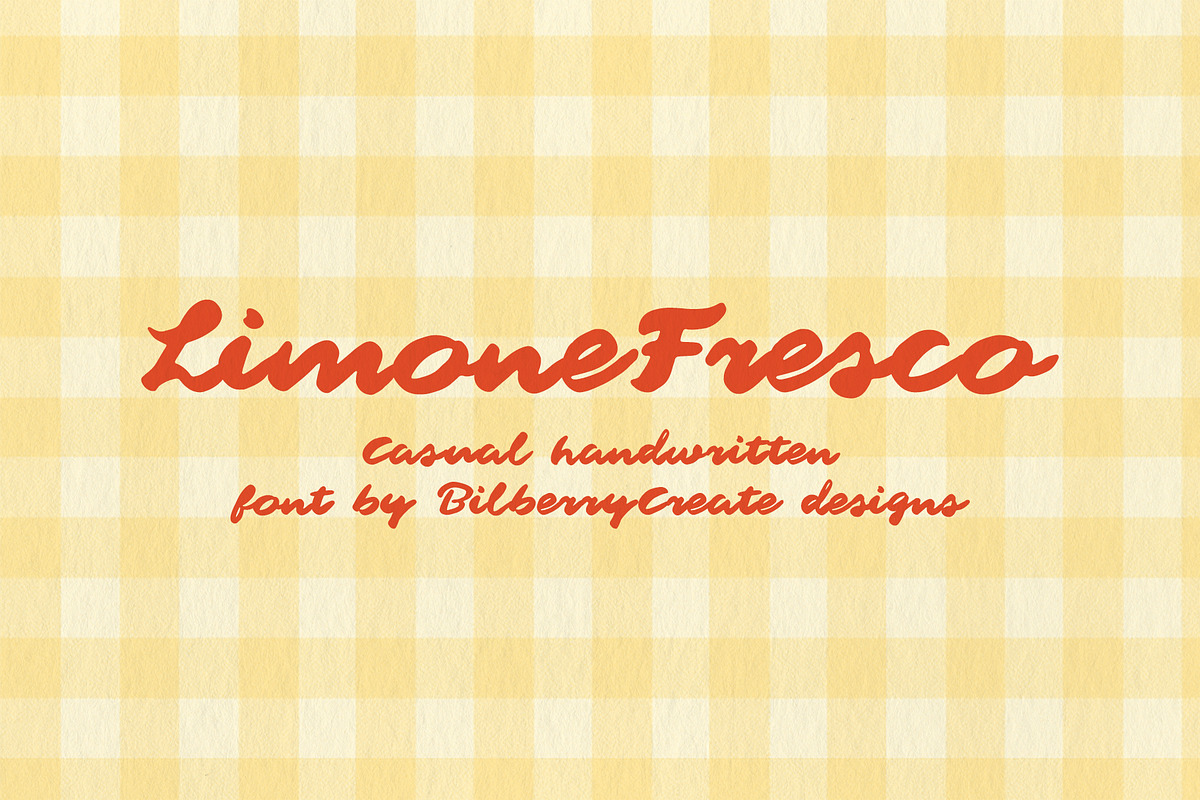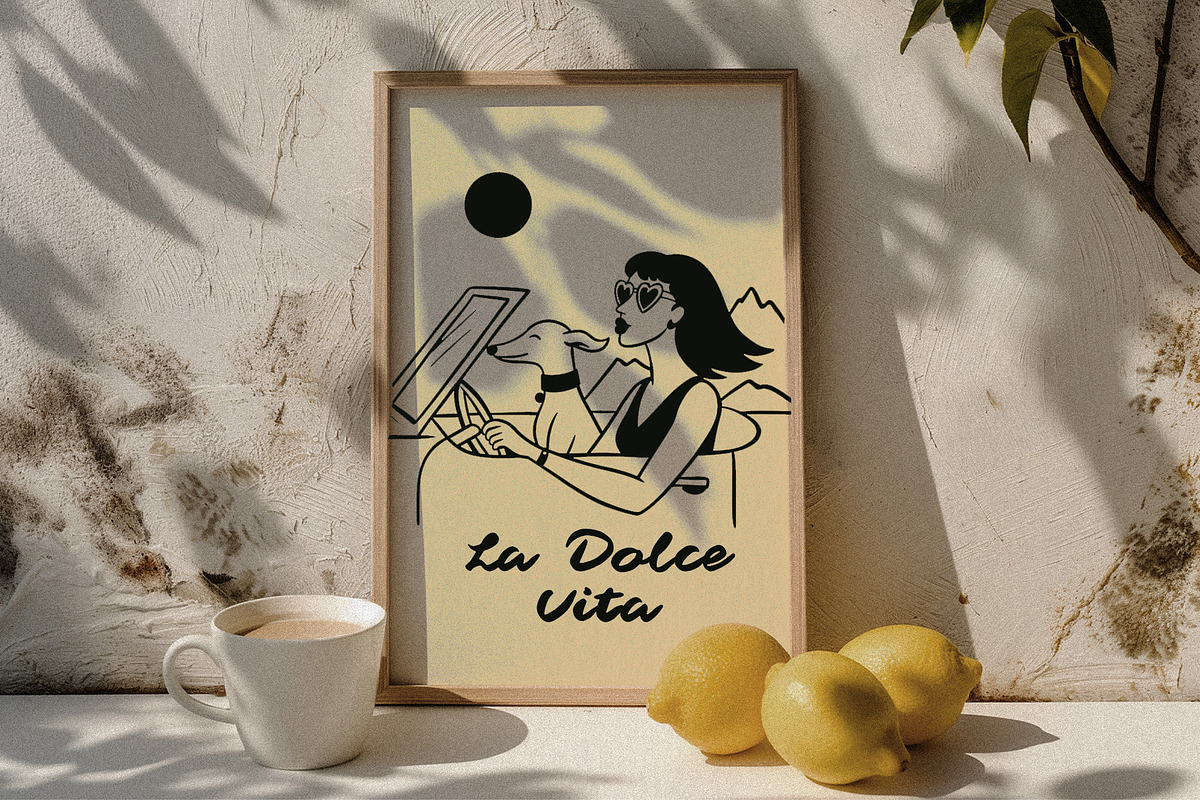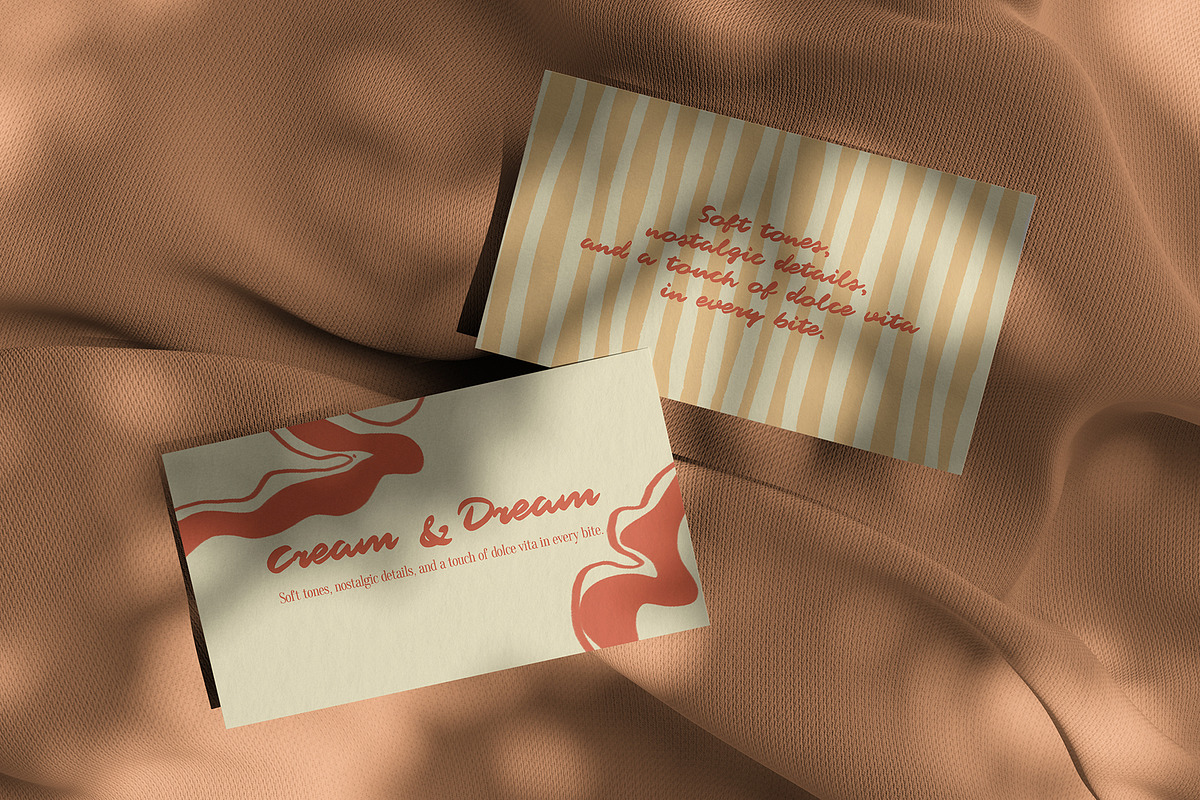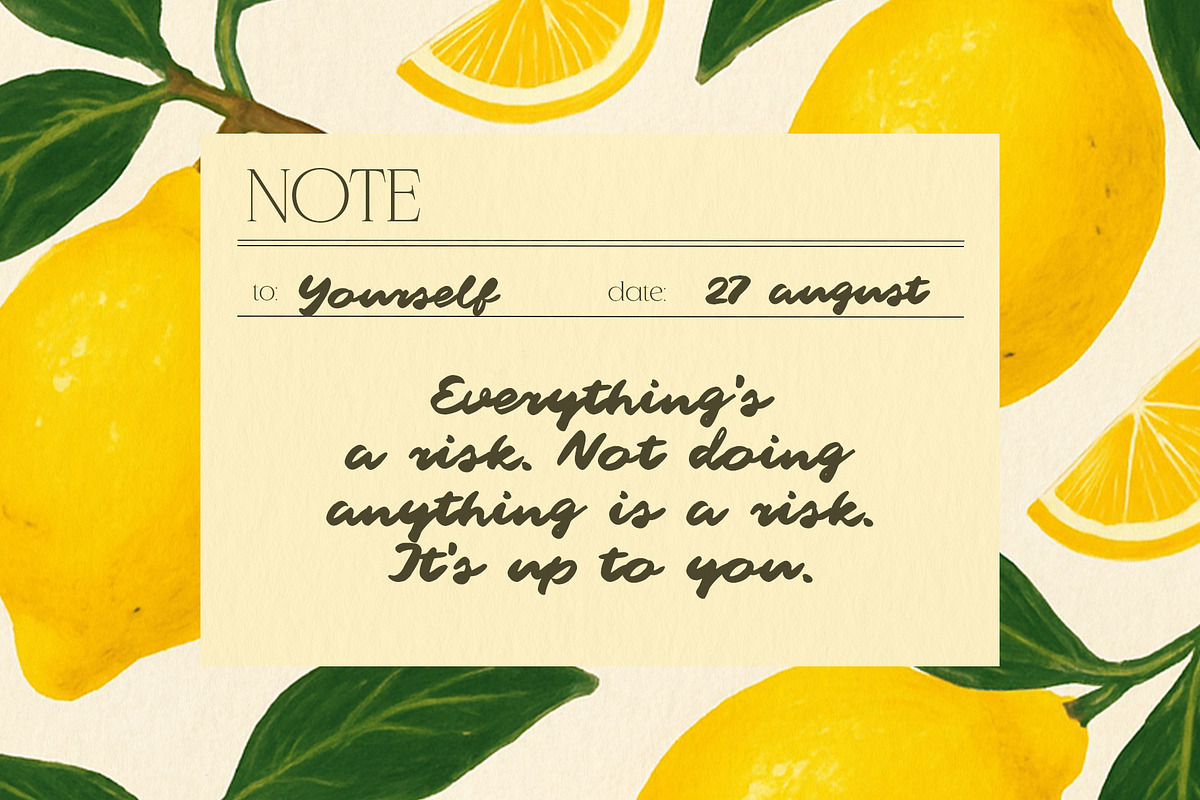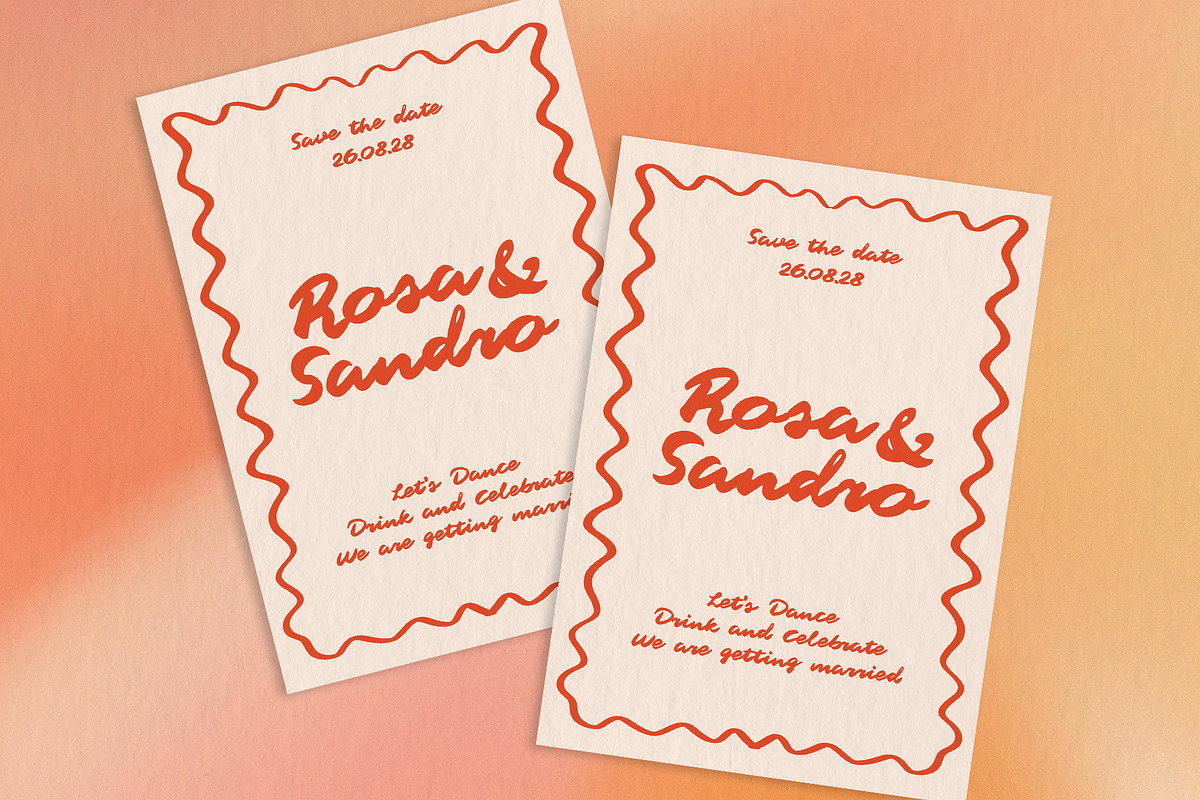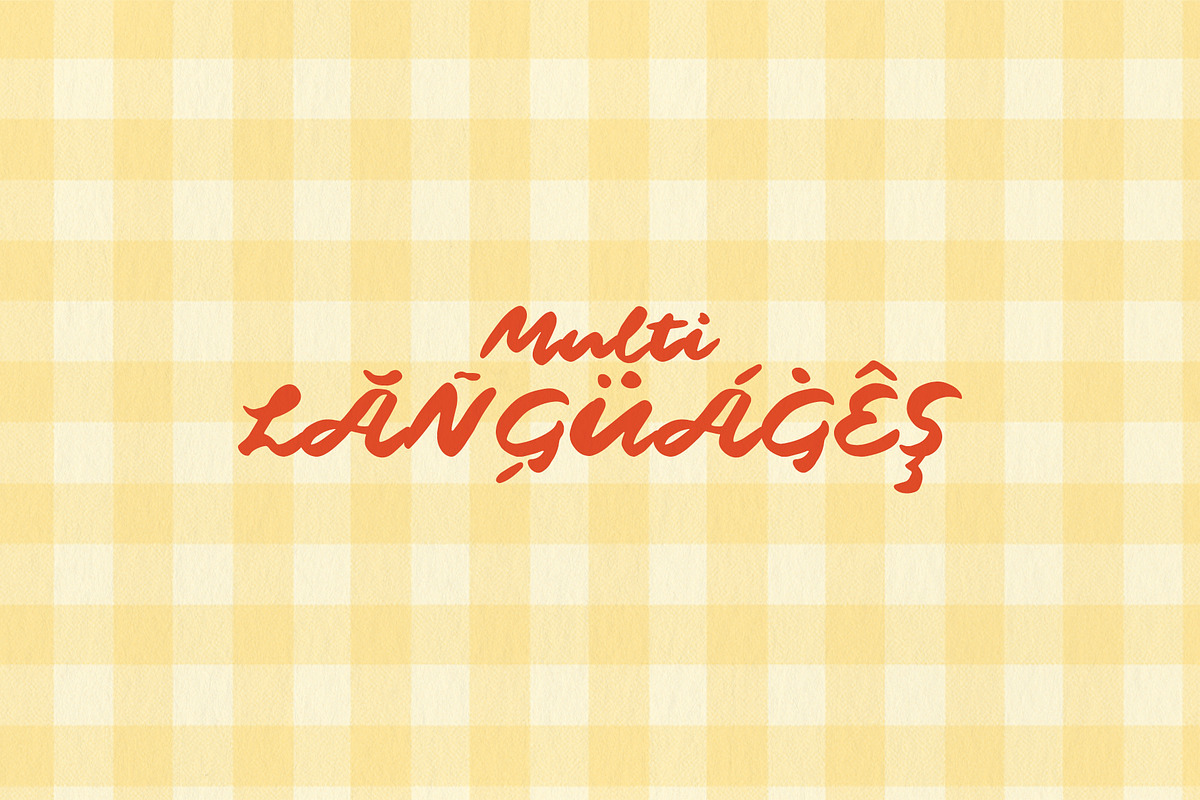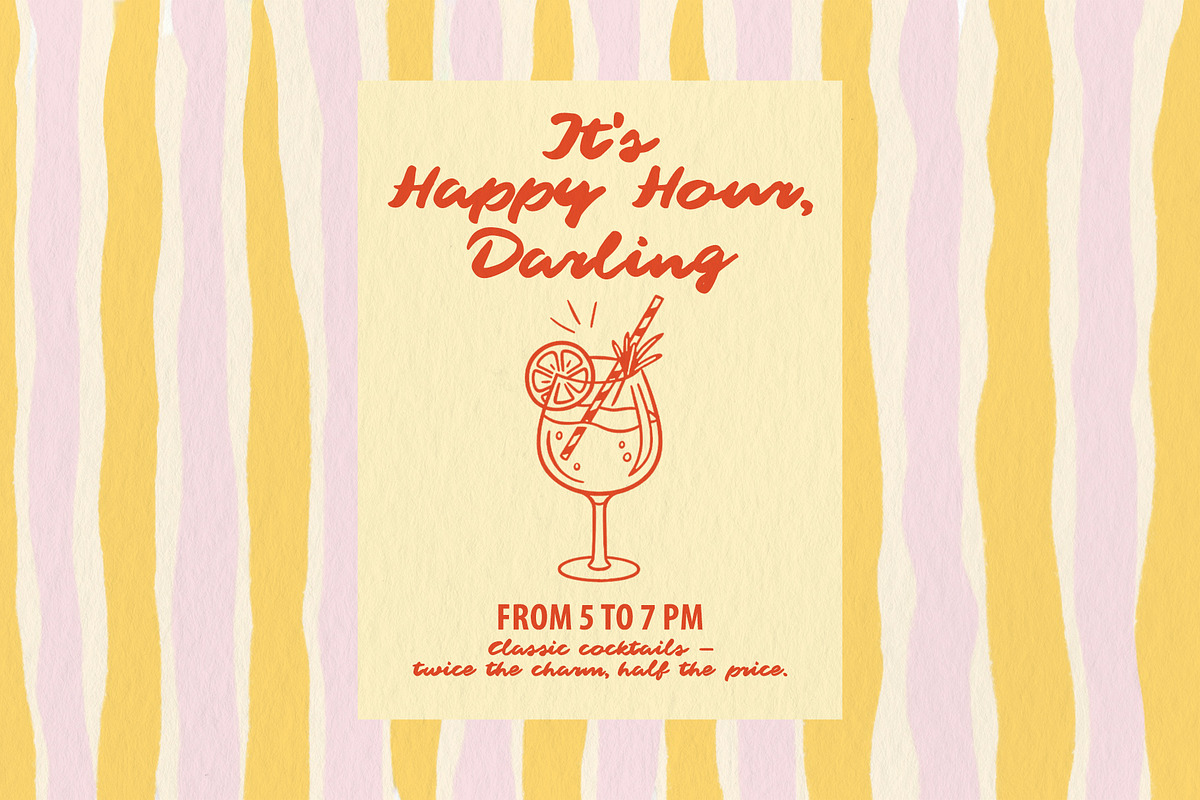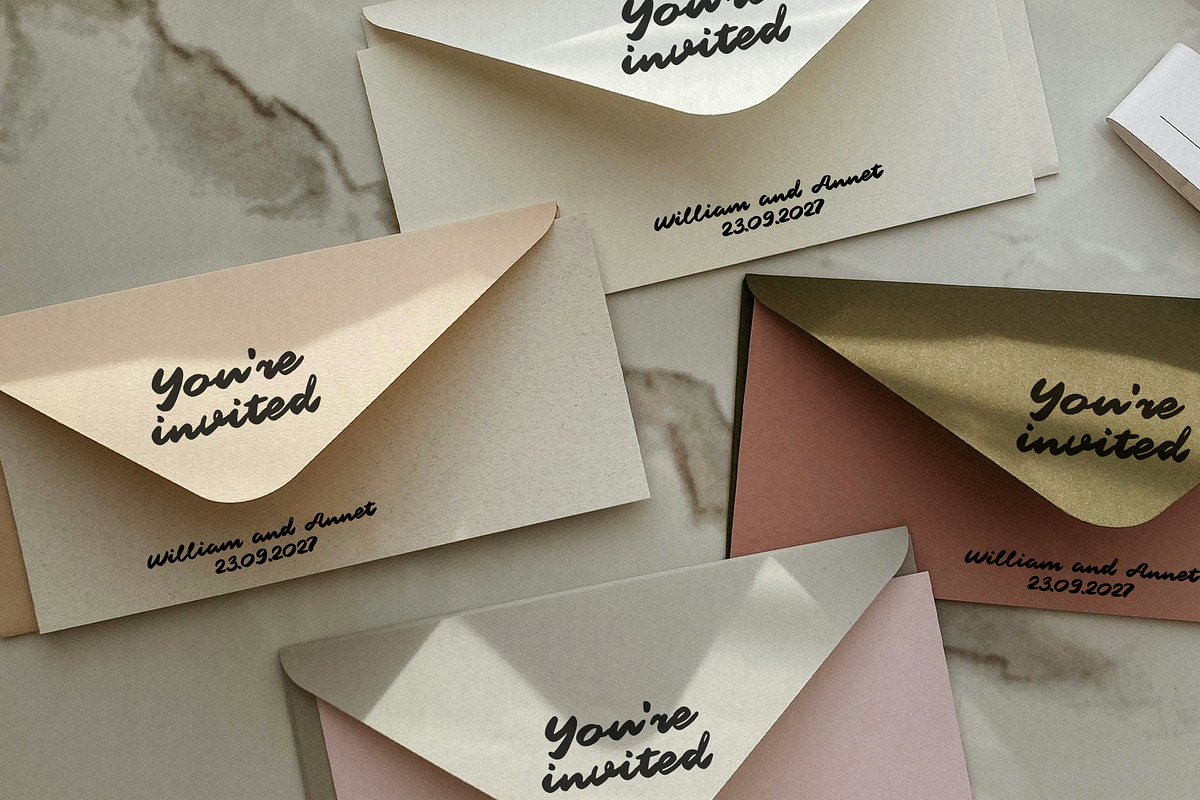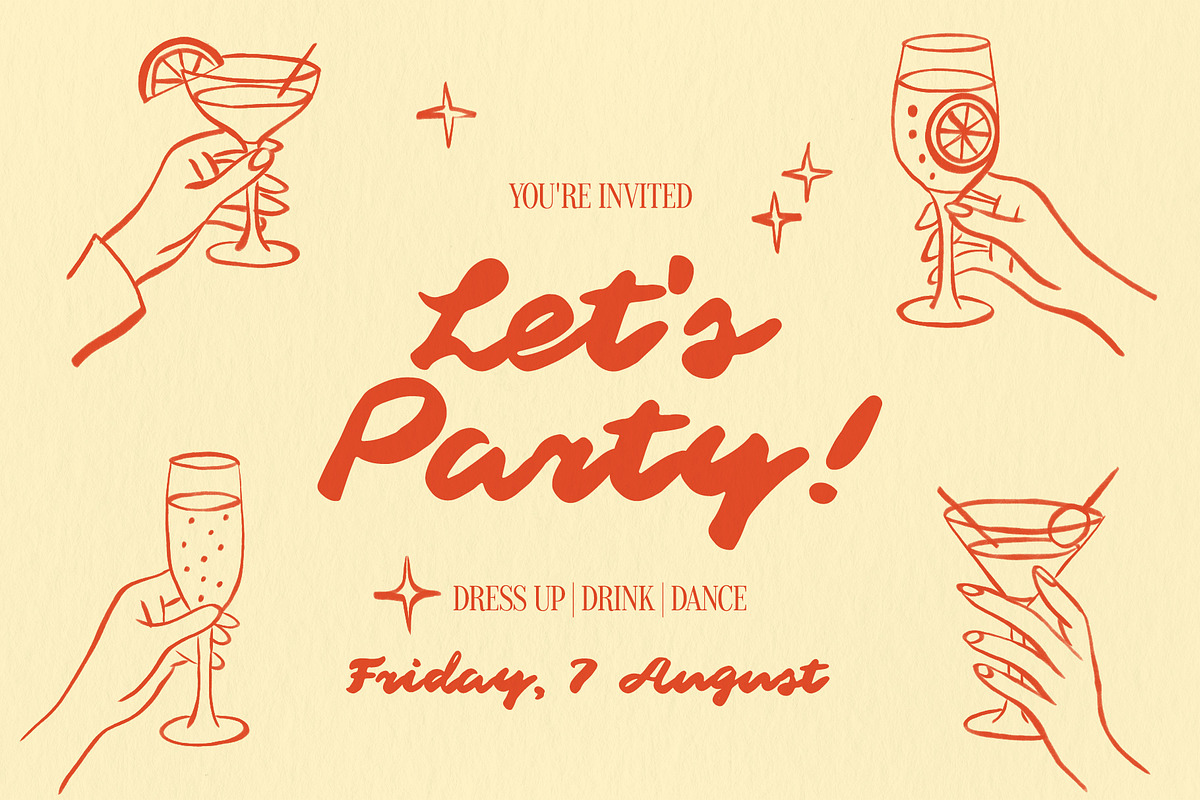
Limone Fresco Handwritten Font
Limone Fresco — Handwritten Font Limone Fresco is a playful handwritten font with a fresh, Mediterranean soul. Its slightly imperfect lines and friendly curves give it a natural, personal feel — like a note scribbled on a warm summer morning.
Perfect for branding, packaging, social media posts, quotes, or anything that needs a touch of softness and spontaneity.
Uppercase & lowercase letters Numbers & punctuation Multilingual support .OTF file included Whether you're designing for lifestyle, beauty, wellness, or food — Limone Fresco adds charm without trying too hard.